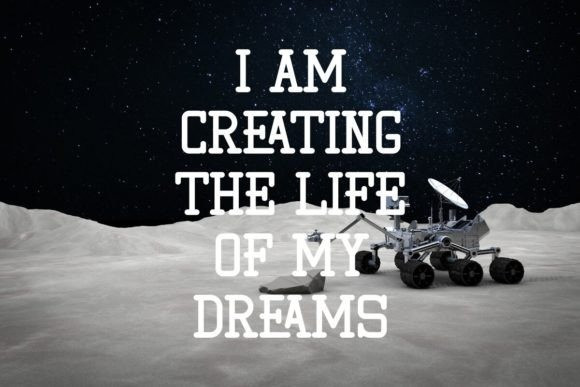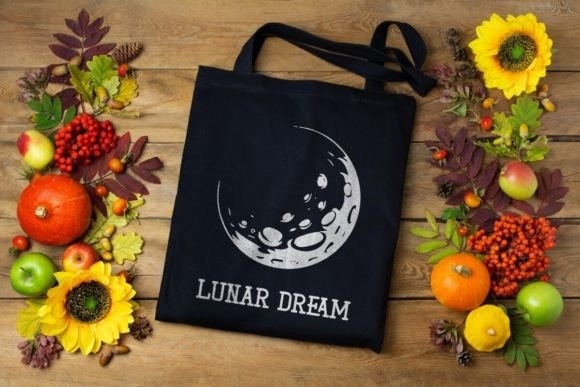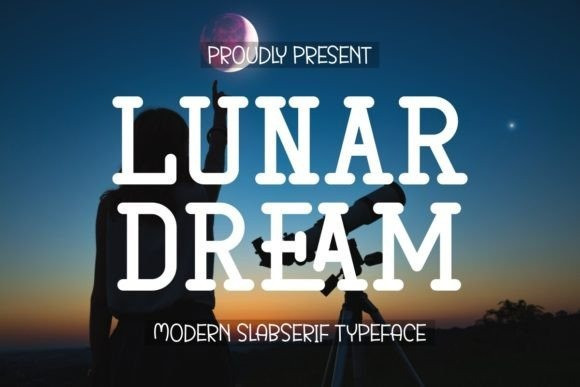
Lunar Dream Font
Lunar Dream Font is an elegant and bold slab serif font. Fall in love with its incredibly versatile style and use it to create gorgeous wedding invitations, beautiful stationary art, eye-catching social media posts, and much more!